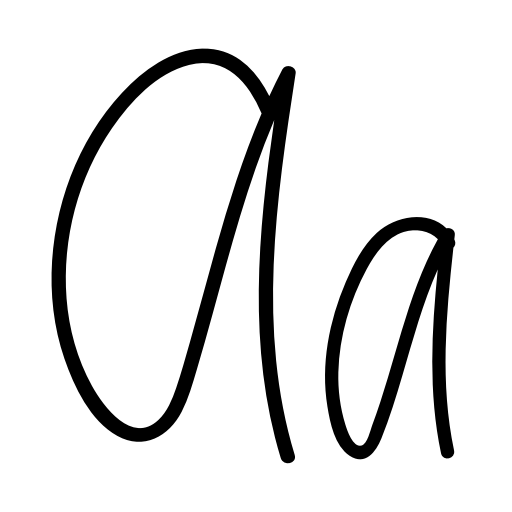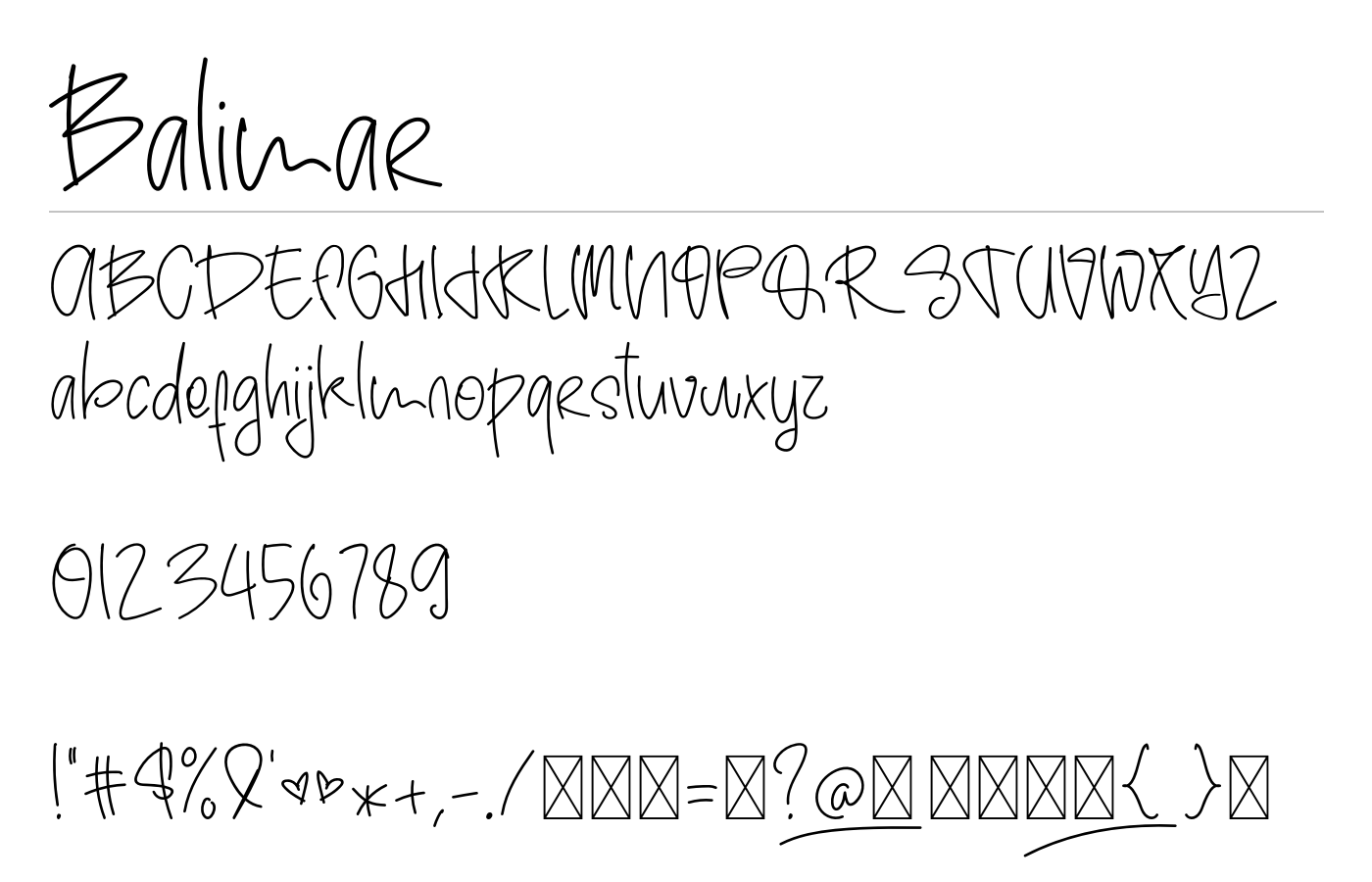
Balimar is a playful, casual handwritten font with a light weight and tall, narrow letterforms that create an airy, informal feel. Its thin, uneven strokes and whimsical character shapes give it a friendly, approachable personality ideal for personal projects, creative branding, and modern designs seeking a genuine, human touch. This font works well for logos, invitations, and social media graphics where a relaxed and unique style is desired.
Balimar Font